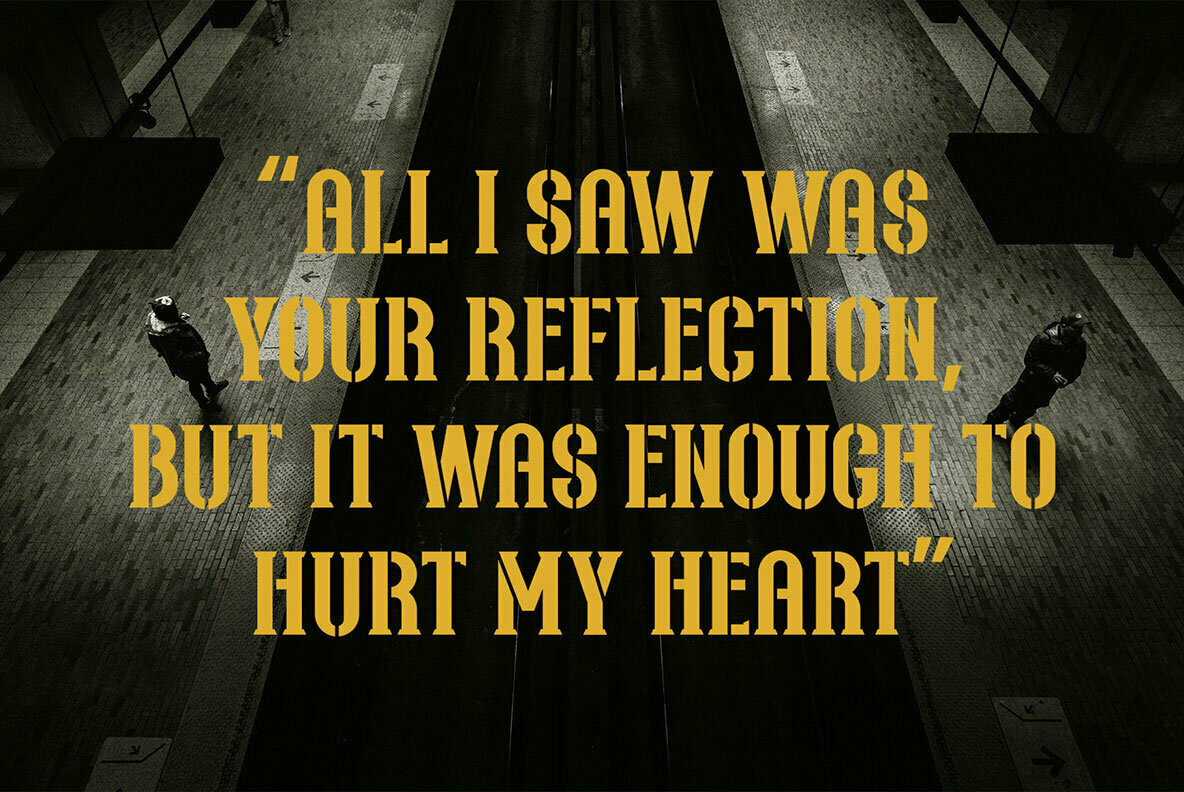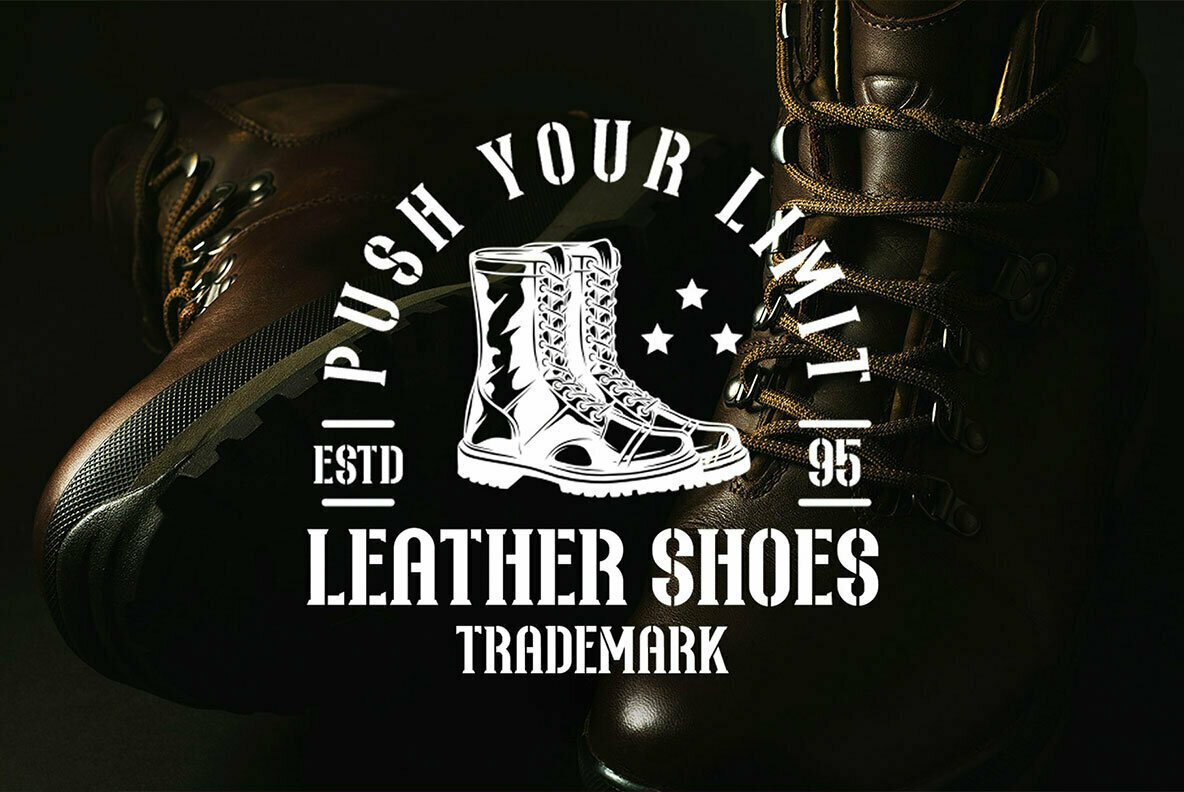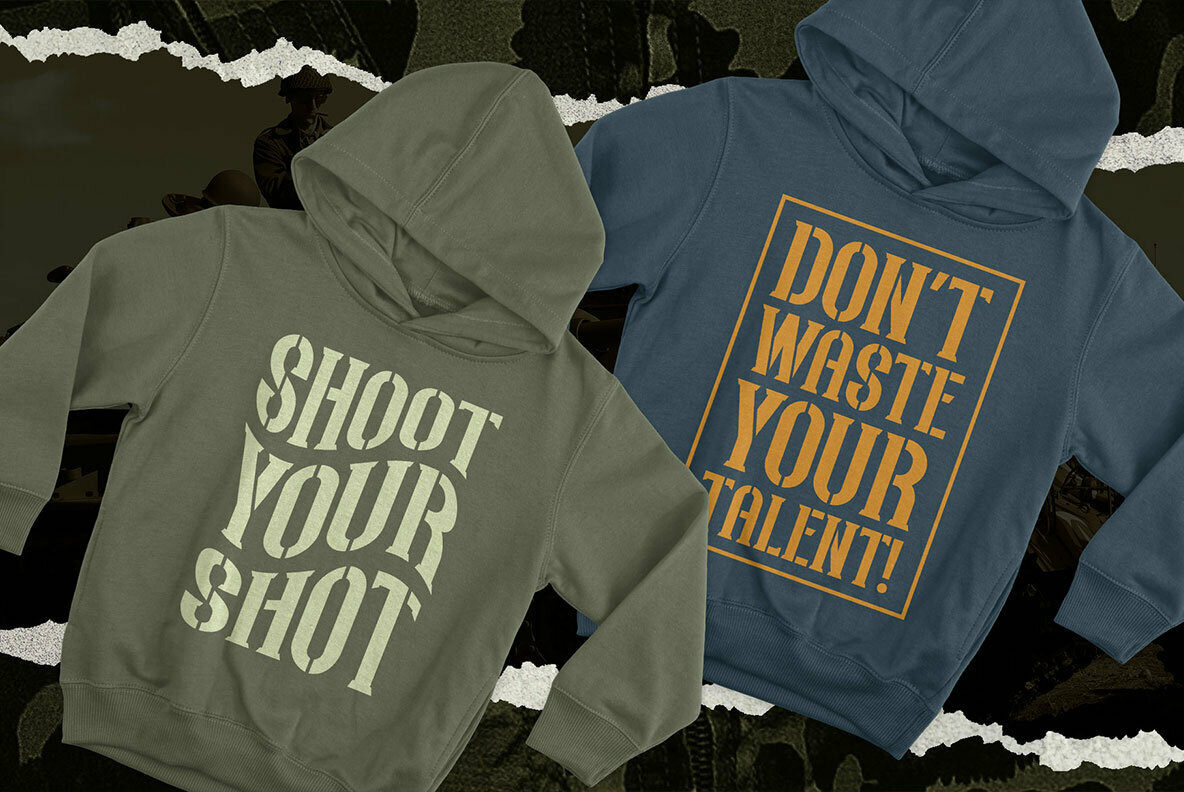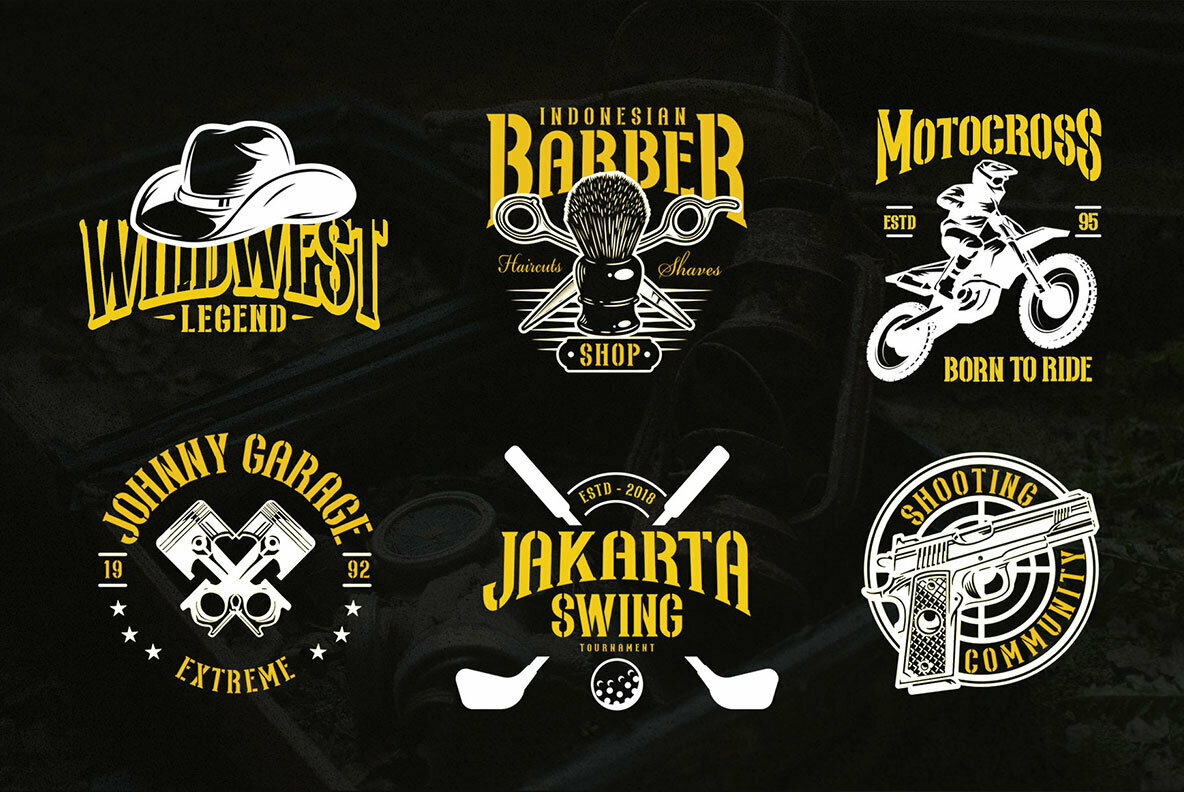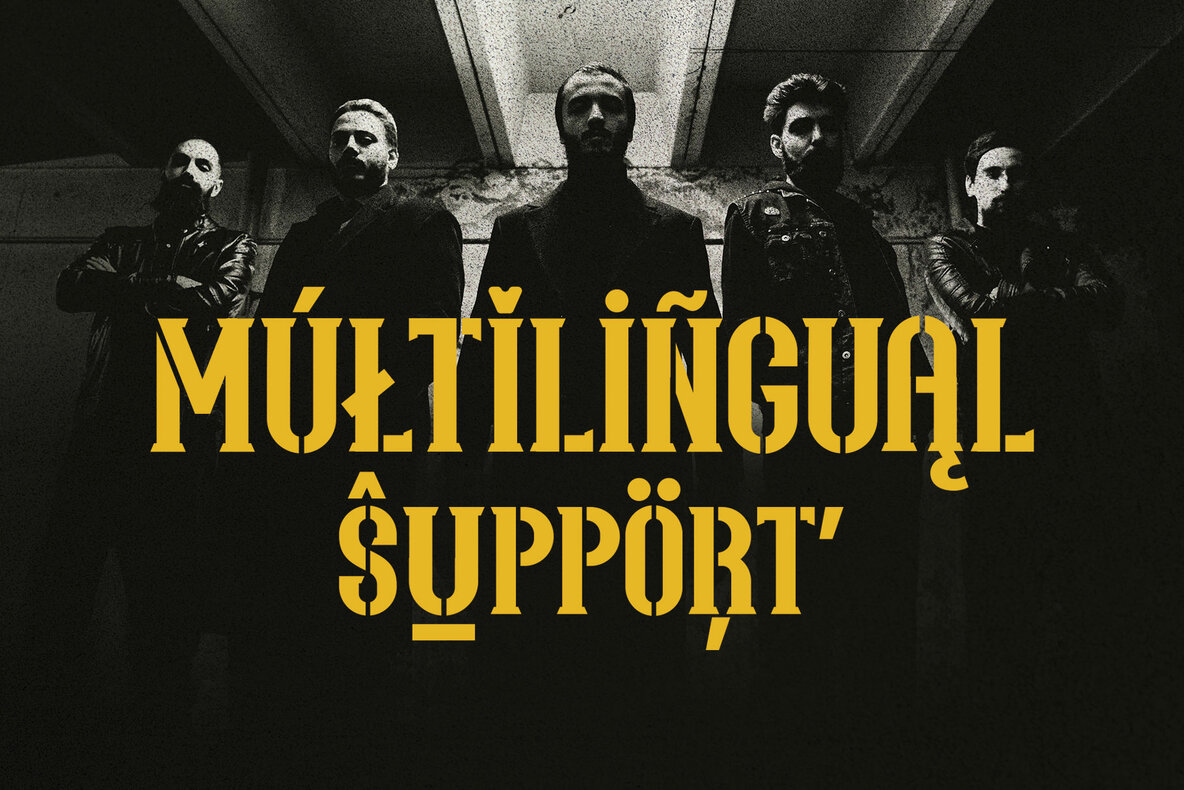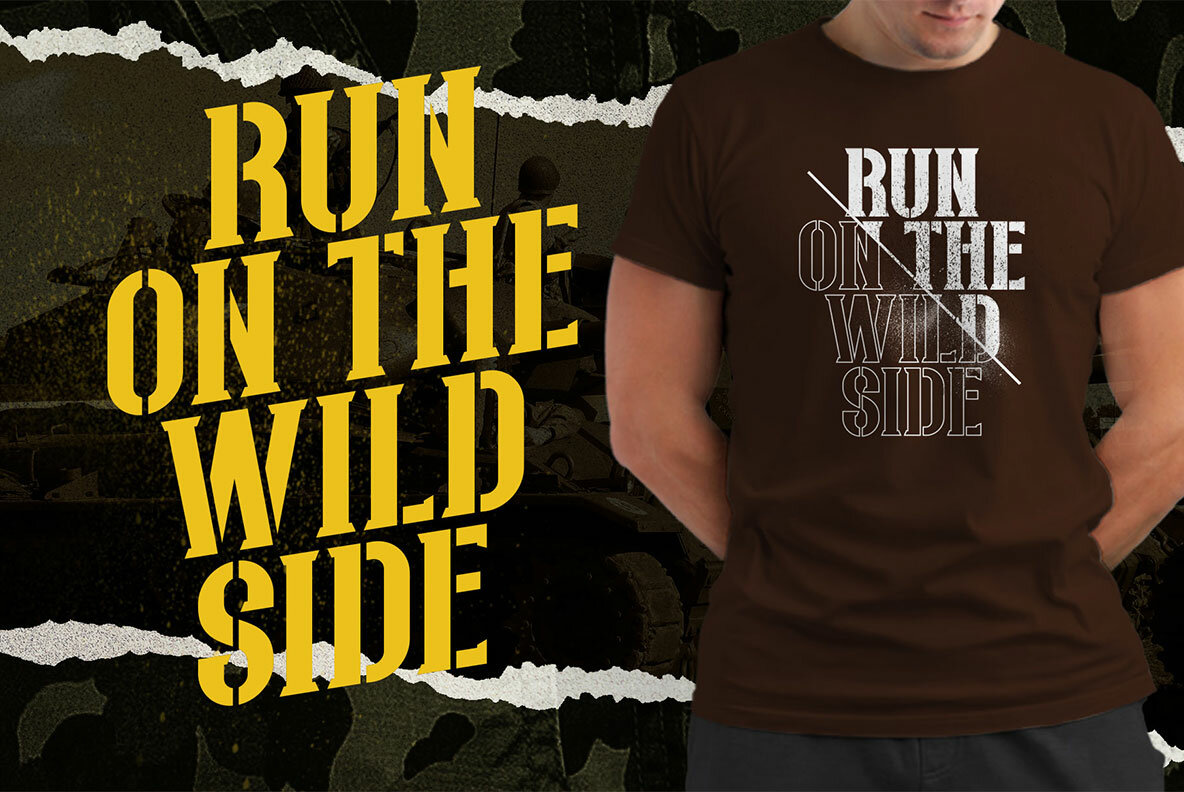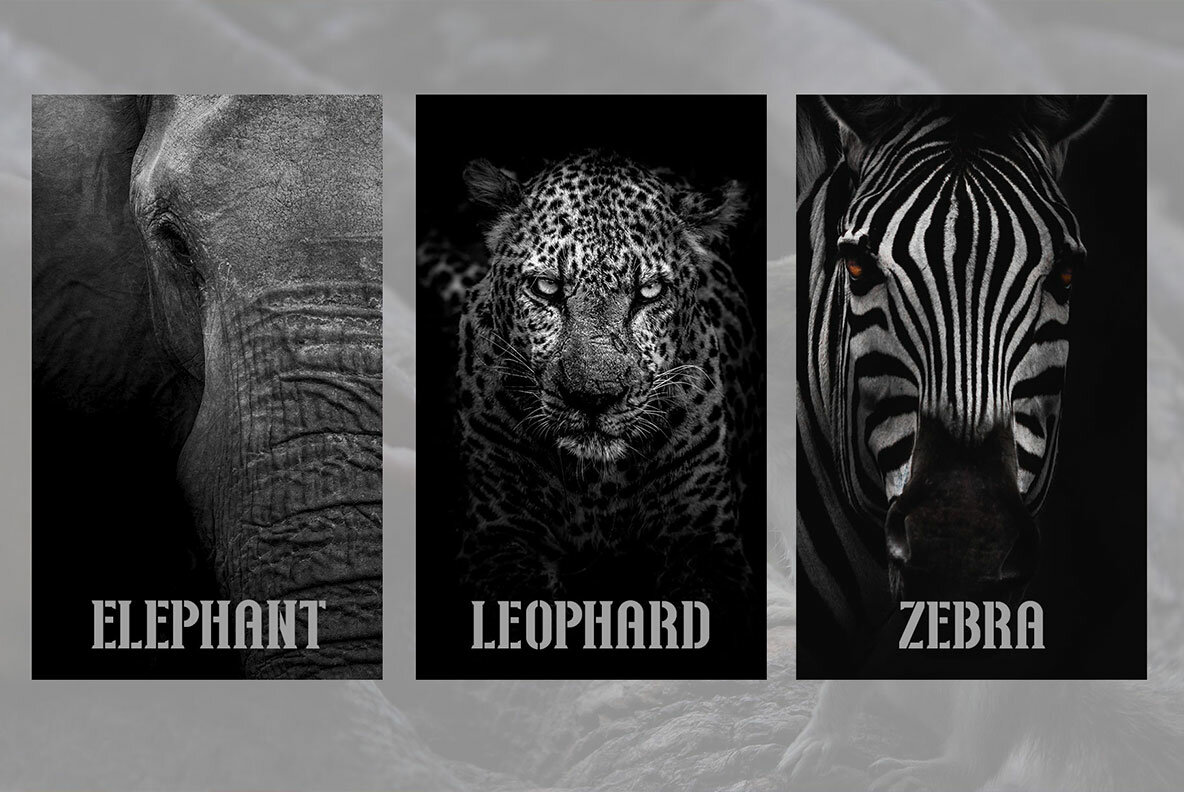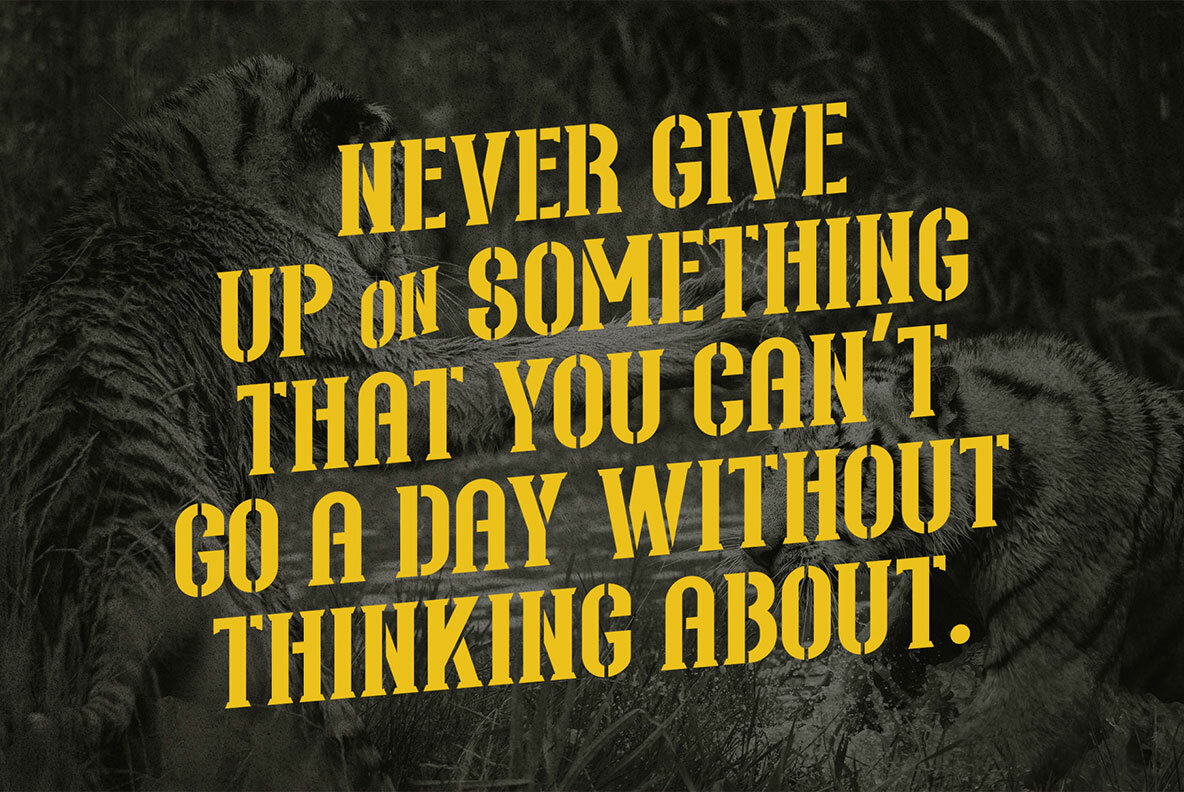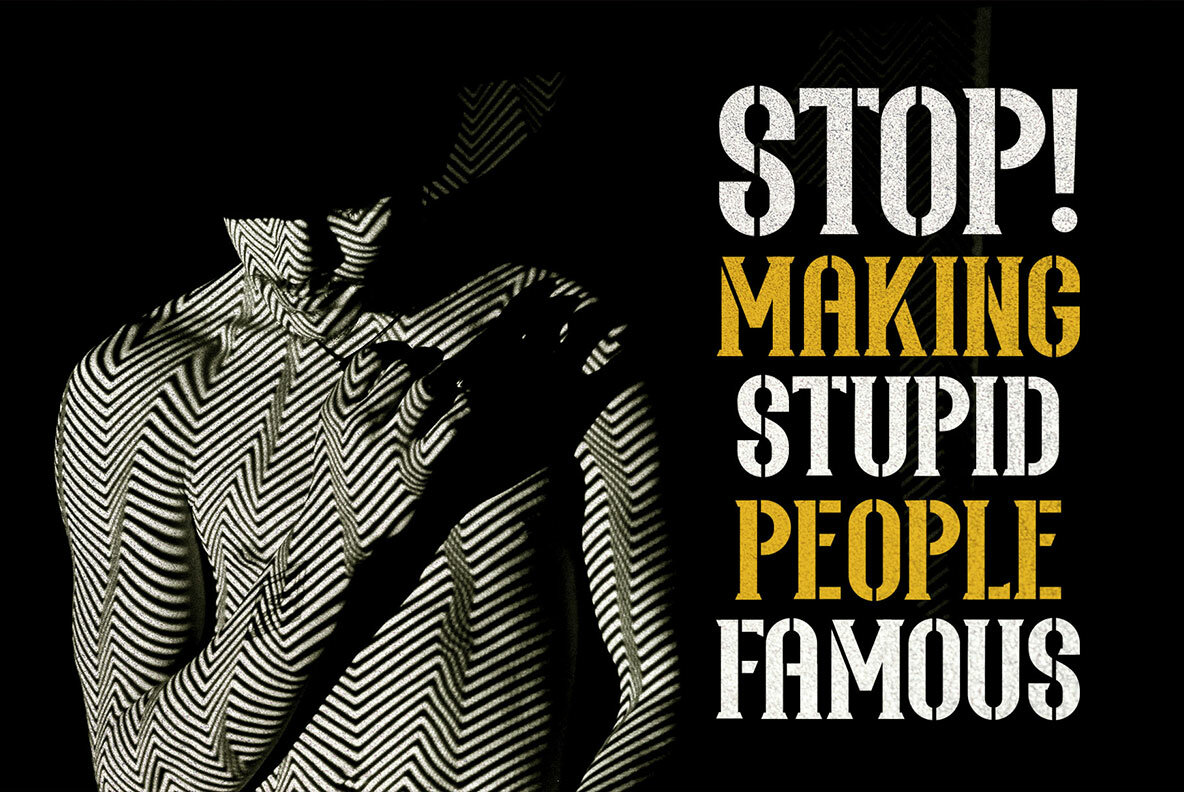
Northash Font
Northash Regular
Northash is a distinctive vintage stencil font drawing inspiration from old-school signage and military design. Ahmad Ramzi Fahruddin crafts a typeface with slightly condensed letterforms, exuding strength and dignity. This font serves diverse themes, from sports and military to urban and vintage aesthetics, making it a versatile choice for any creative endeavor.Northash: Vintage Stencil Font with Military Influence